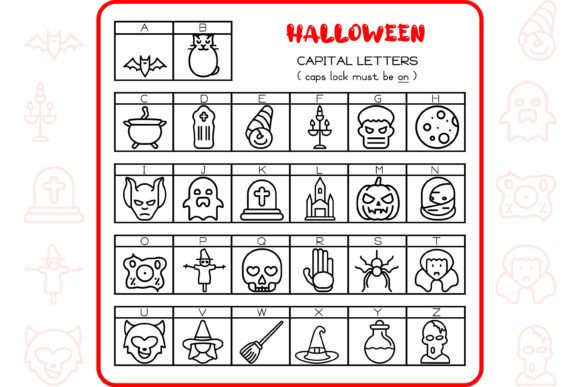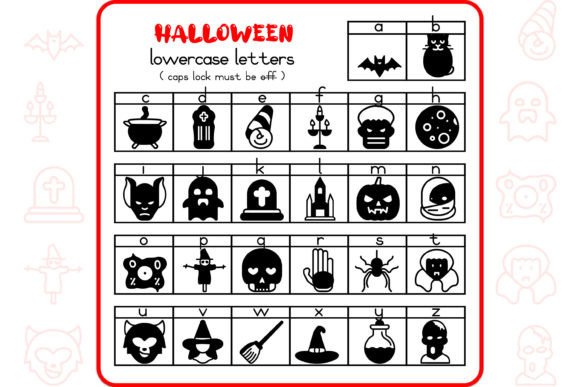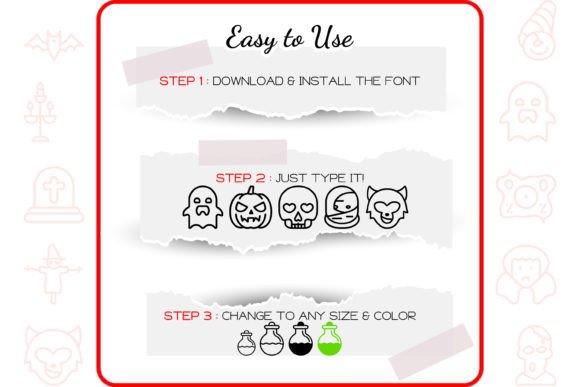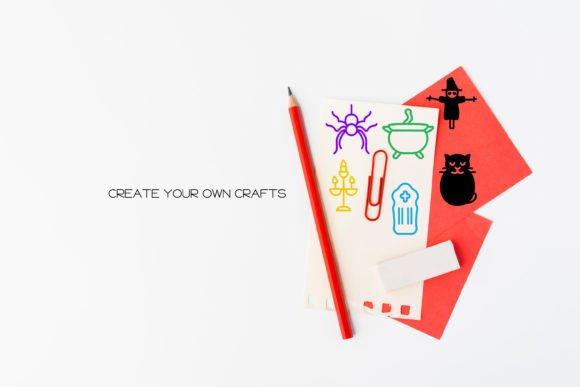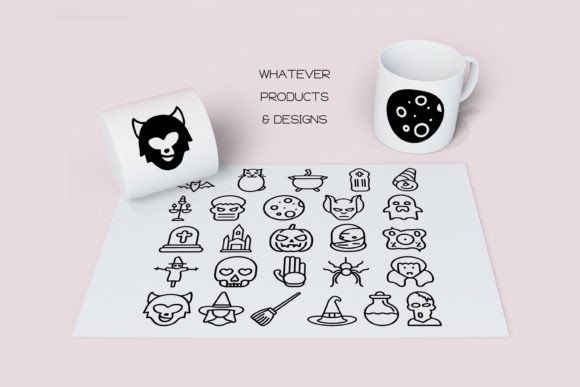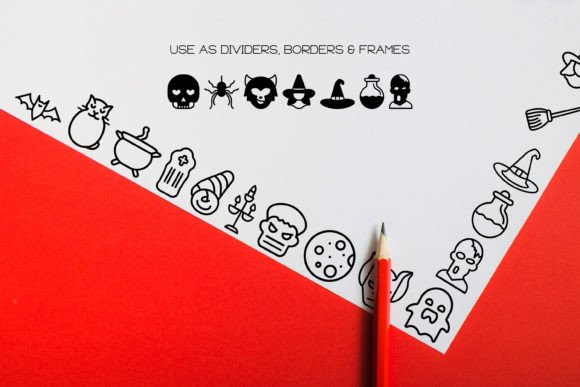
Introduction to Halloween Icons Font
Halloween is a unique and cute dingbat font.
It contains 52 icons in 2 styles (Outline & Filled-Outline) Add this font to your creative ideas and make your arts outstanding.
Halloween Icons Font offers exceptional quality and versatility, making it a valuable addition to your design toolkit. Whether you’re creating for personal projects or commercial use, Halloween Icons Font delivers professional results.